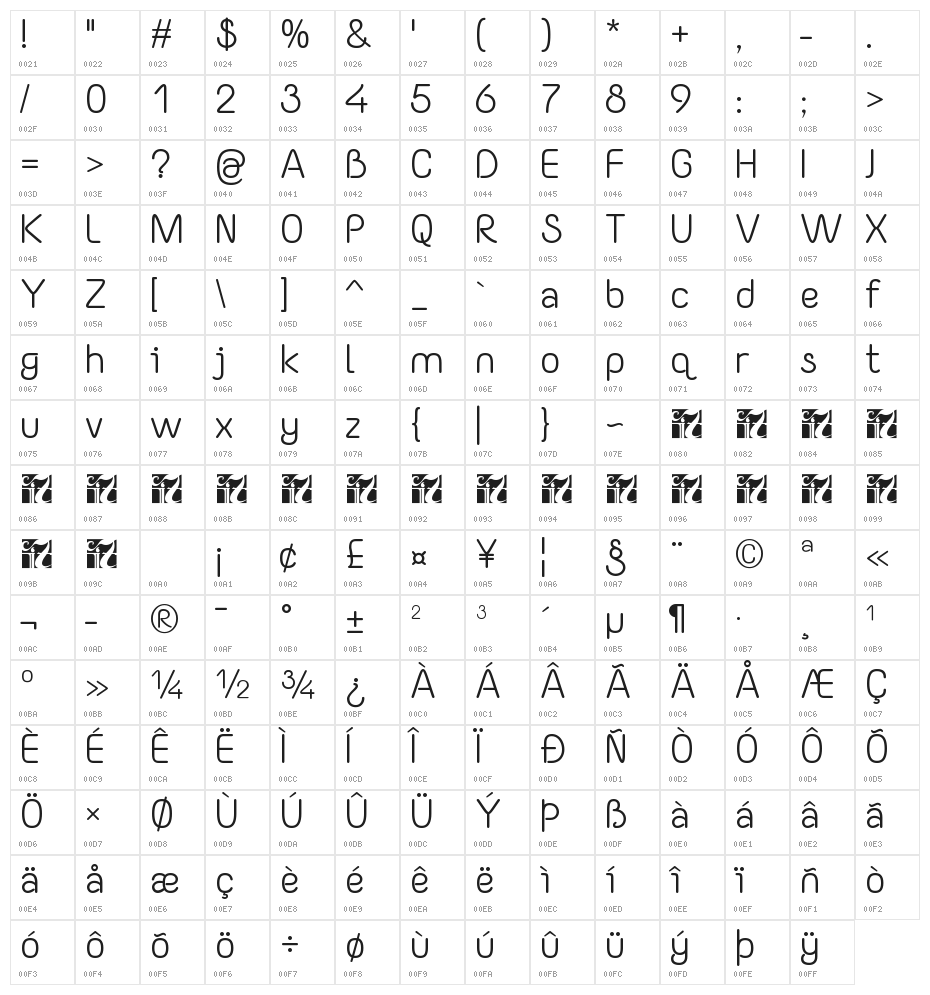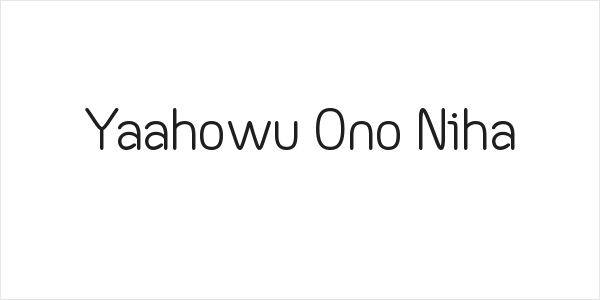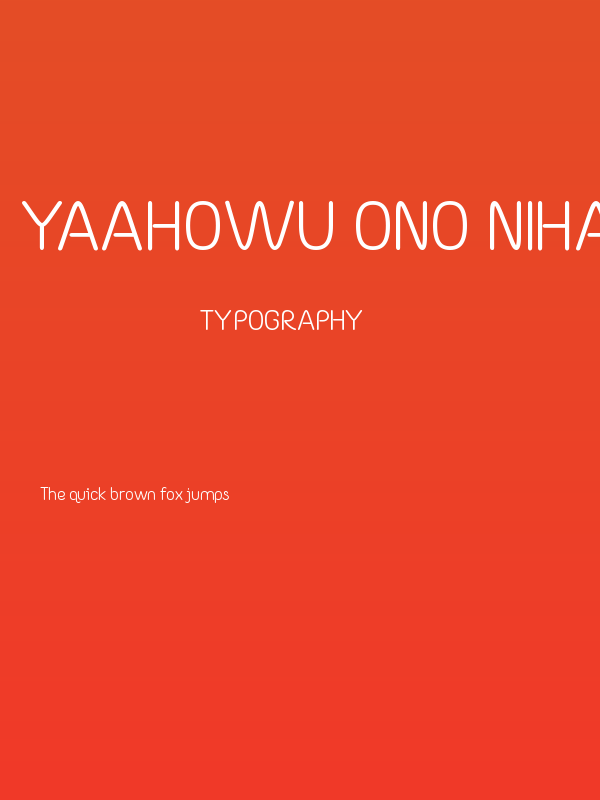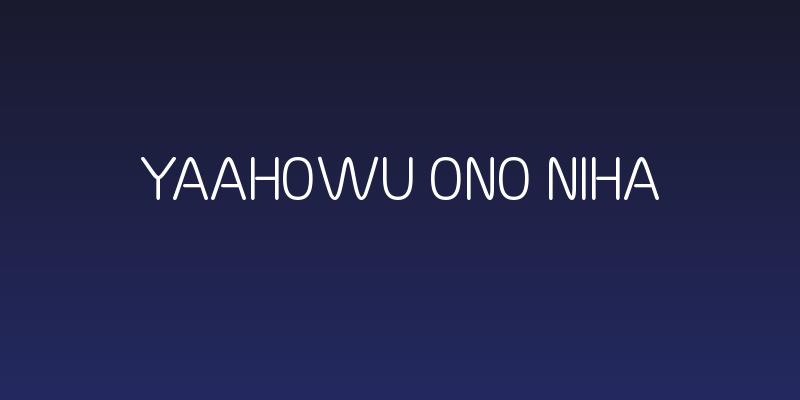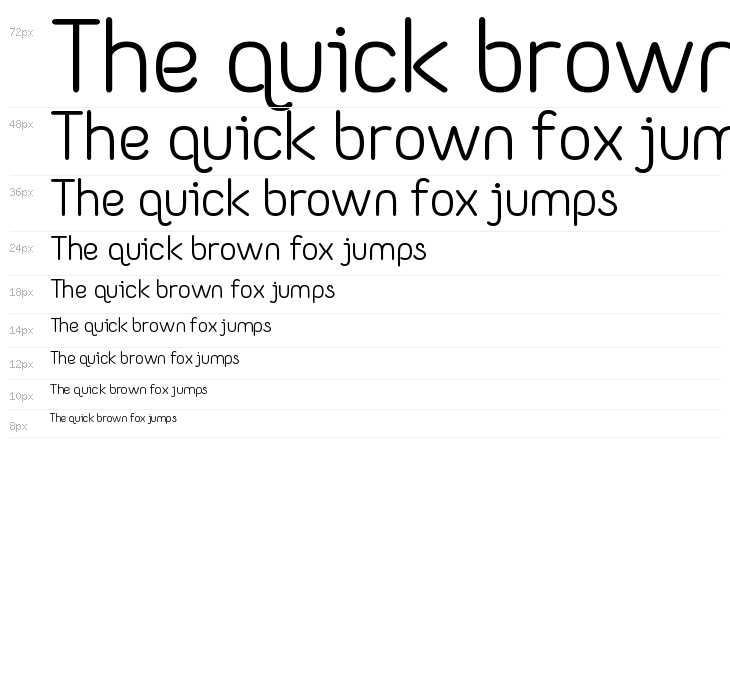
Yaahowu Ono Niha Font
Yaahowu Ono Niha Description
This font features a clean, rounded sans-serif style with a modern and approachable appearance. The characters are evenly spaced, with smooth curves and a consistent stroke width that gives it a harmonious and balanced look. The uppercase letters maintain a uniform height, while the lowercase letters are slightly shorter, providing a clear distinction between the two. The numerals are designed to match the overall style, ensuring readability and consistency. Special characters are included, maintaining the same rounded aesthetic, making this font versatile for various applications.
| Proposed Projects | Ideal for branding, digital interfaces, signage, and educational materials due to its clarity and modern appeal. |